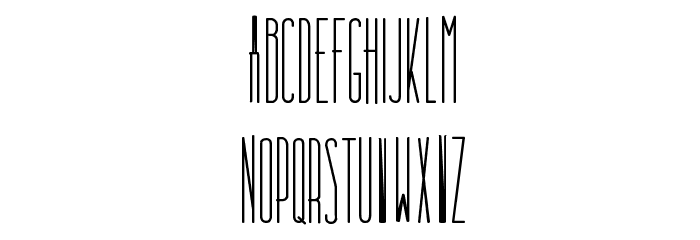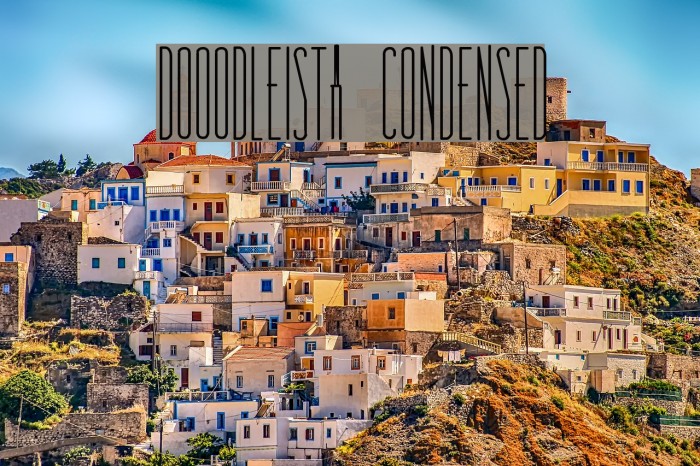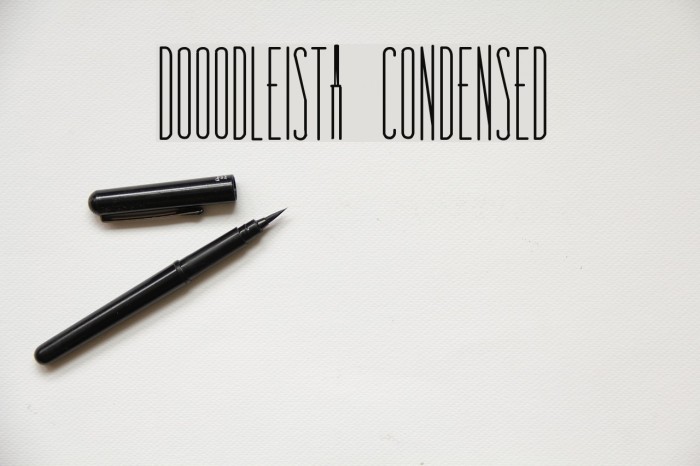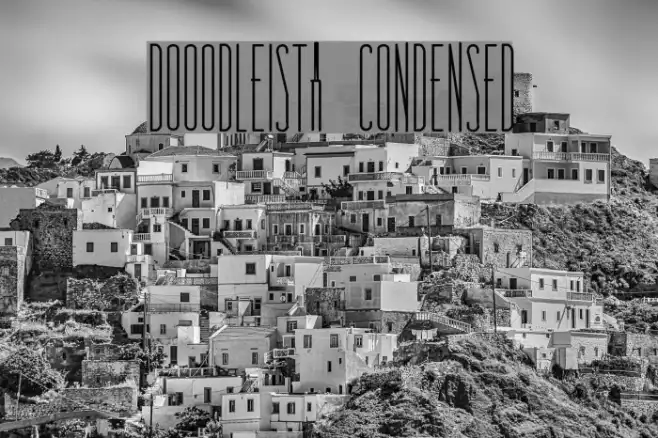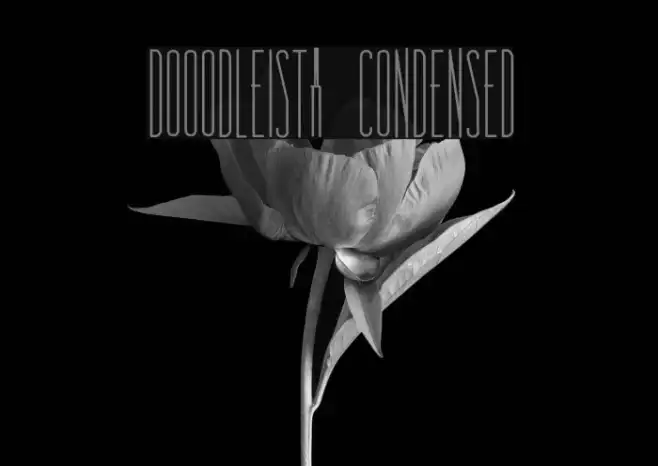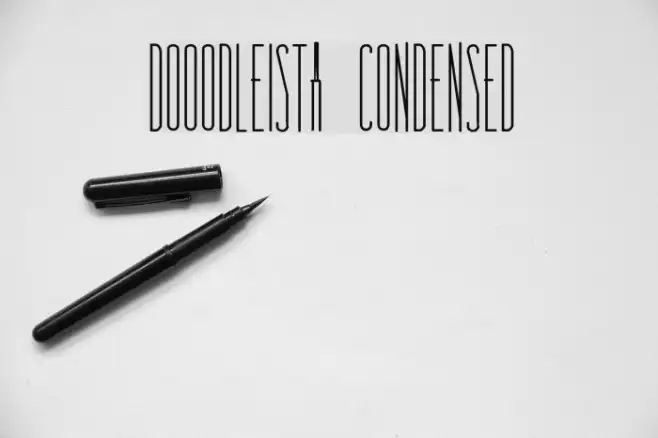
Dooodleista Condensed Font
This font features a tall, narrow design with a distinctly condensed appearance. The characters are elongated, giving a sleek and modern feel. The strokes are consistent in width, providing a uniform look across all letters and numbers. The uppercase and lowercase letters maintain a similar height, enhancing the condensed style. The special characters are designed to match the overall aesthetic, ensuring cohesion throughout. This font's clean lines and minimalistic design make it suitable for contemporary projects.
A tall, narrow, and modern condensed font with uniform stroke widths.
- Proposed Projects: Ideal for modern branding, fashion magazines, posters, and minimalist design projects.
- Character Spacing: Tight